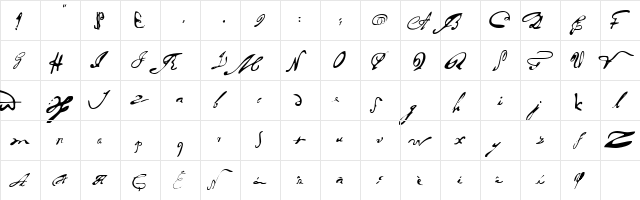
PortuguesArcaicoLectura Regular
Design Context for PortuguesArcaicoLectura Typeface
PortuguesArcaicoLectura is a composed and adaptable typeface that performs quietly and consistently across a wide range of design contexts.